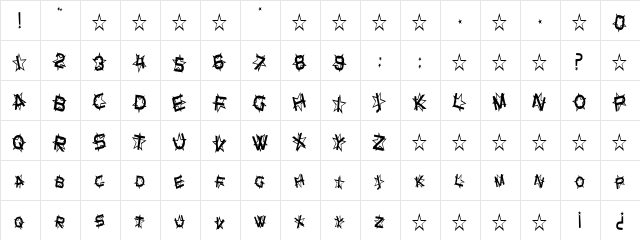
Star Dust Condensed Regular
Design Context for Star Dust Condensed Typeface
Star Dust Condensed is a composed and adaptable typeface that performs quietly and consistently across a wide range of design contexts. Its narrow stance lets it pack a punch even in space-constrained designs.